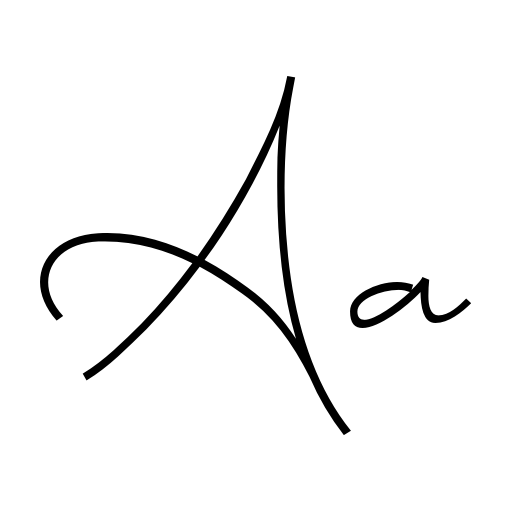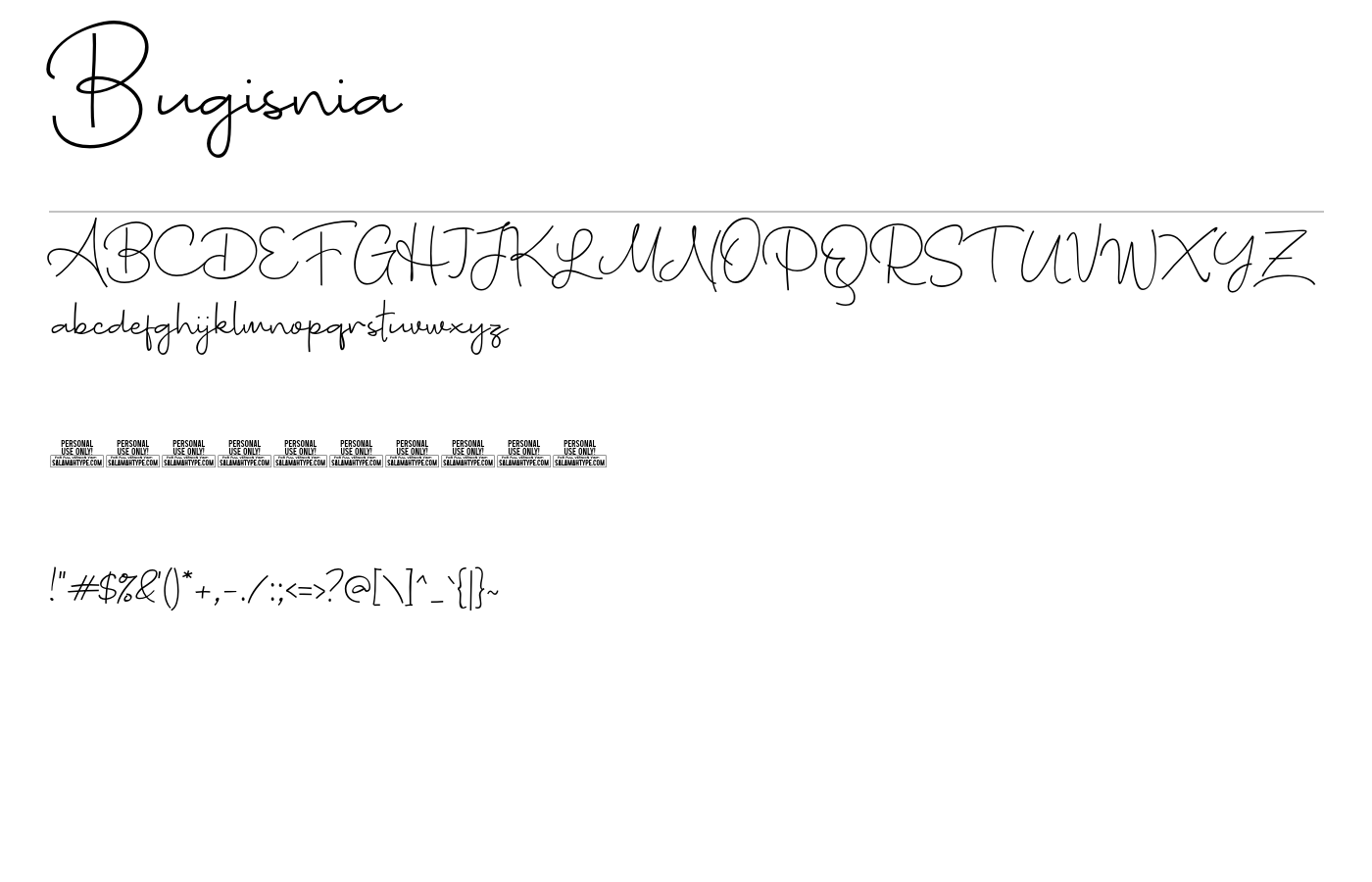
Bugisnia is a delicate, handwritten script font characterized by its slender, airy strokes and elegant, flowing letterforms. Its light weight and high x-height give it a graceful, casual feel, making it perfect for personal branding, invitations, and feminine or creative designs that seek a touch of charm and sophistication. This font works best in headlines and logos where a natural, hand-crafted aesthetic is desired.
Bugisnia Font